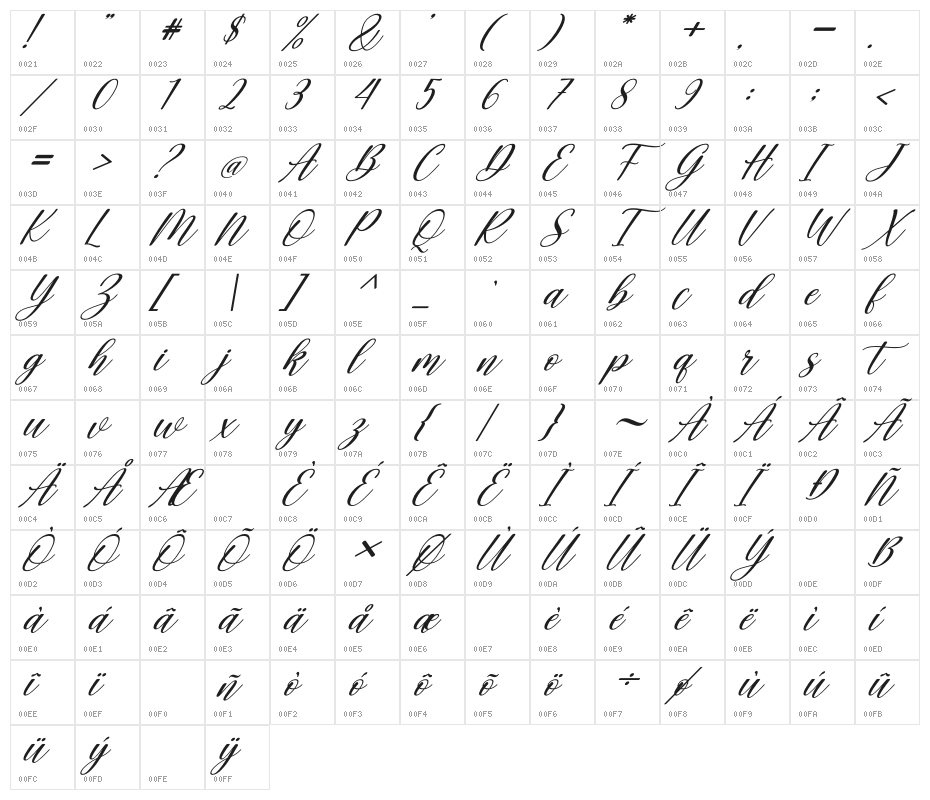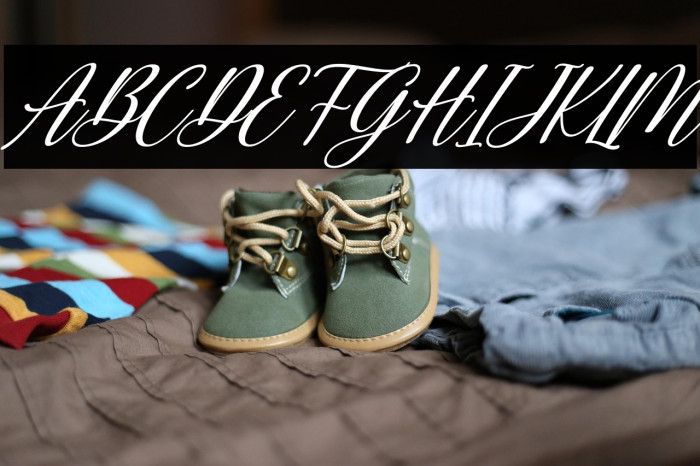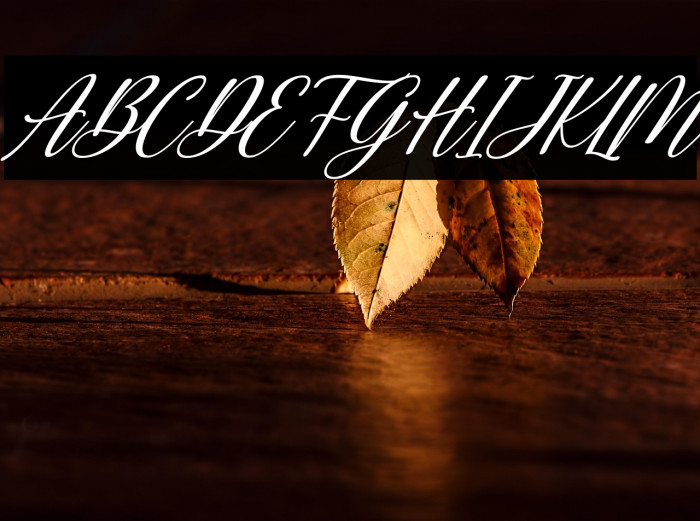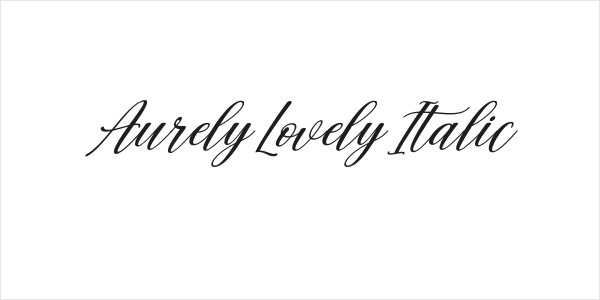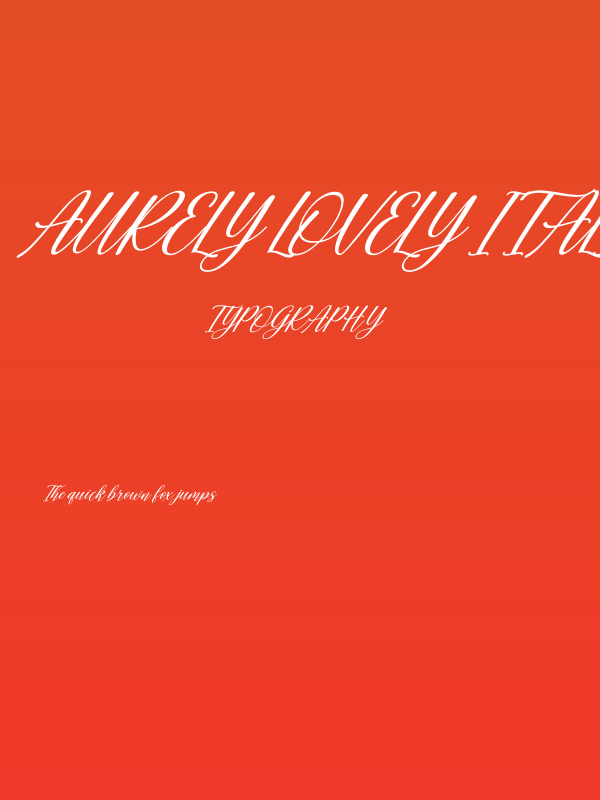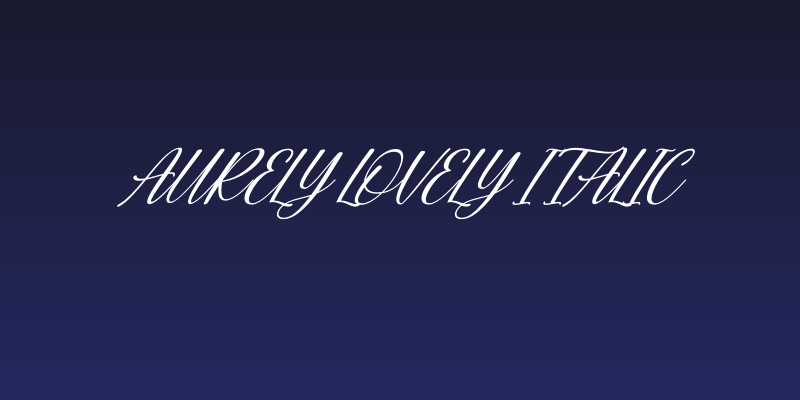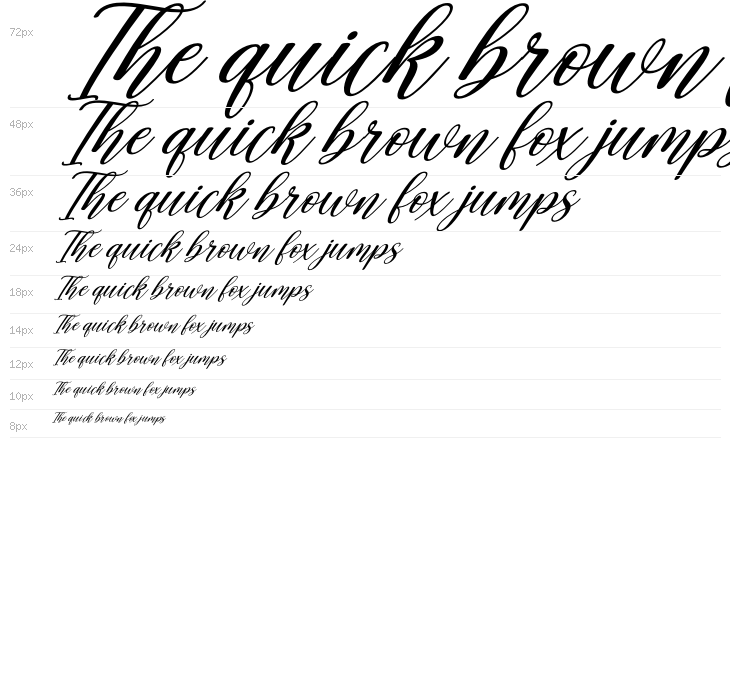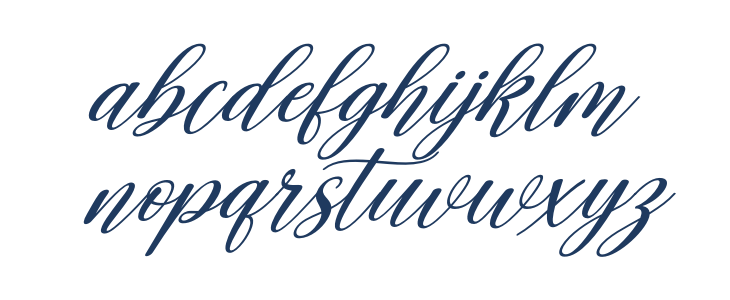
Aurely Lovely Italic Font
Aurely Lovely Italic Description
This elegant script font features a flowing, cursive style with a sophisticated and graceful appearance. The characters are connected, creating a seamless and fluid look that is both stylish and refined. The uppercase letters are tall and slightly slanted, while the lowercase letters maintain a consistent slant, enhancing the font's overall elegance. The numerals are designed to match the script's fluidity, with curves that complement the letters. Special characters are thoughtfully integrated, maintaining the font's cohesive style. This font exudes a sense of romance and charm, making it ideal for projects that require a touch of elegance.